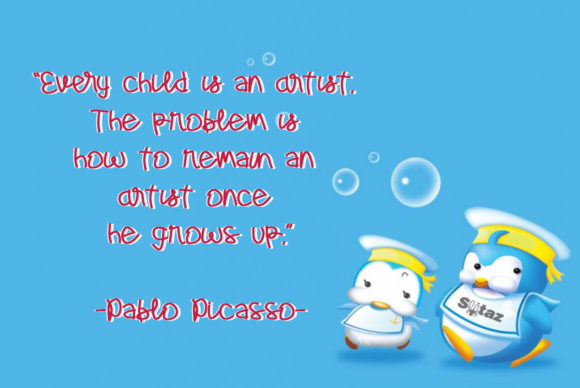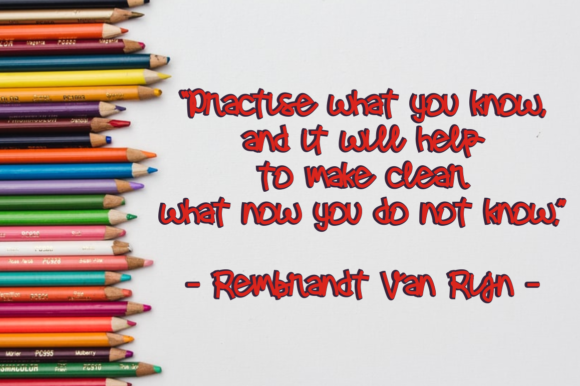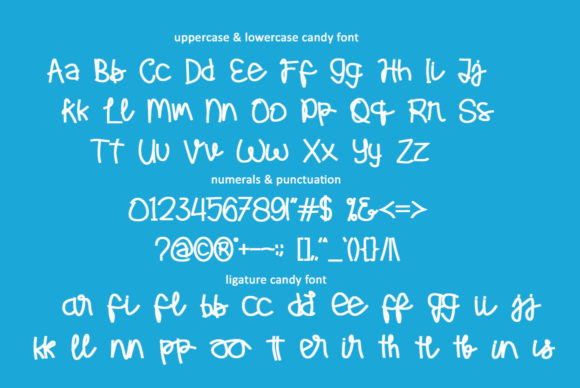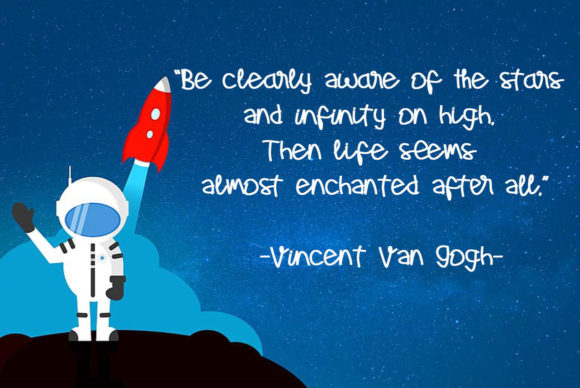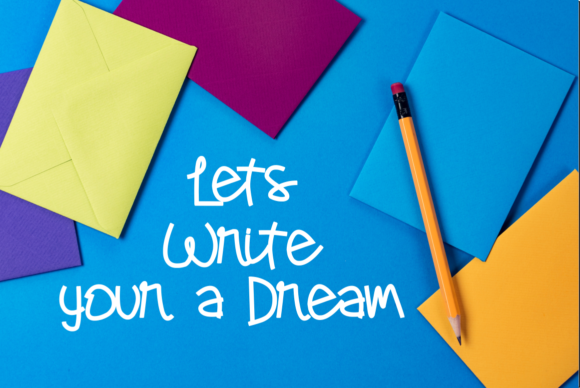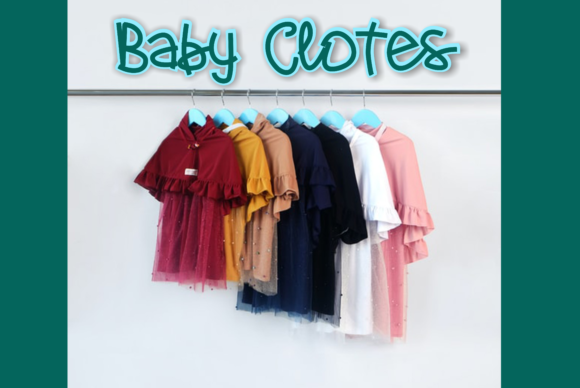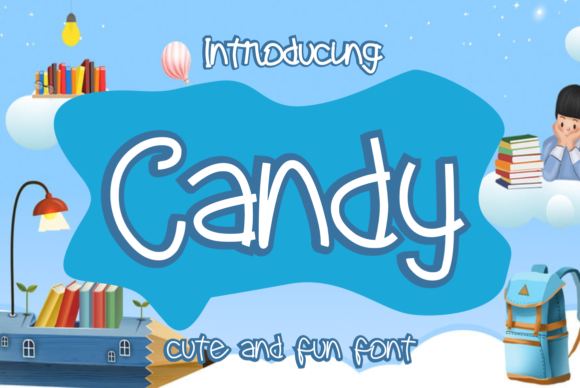
Candy Font: The Sweetest Addition to Your Designs
Are you looking for a font that can add a touch of whimsy and playfulness to your designs? Look no further than the Candy font! This adorable display font is perfect for designers and crafters who want to create eye-catching and engaging content. In this article, we’ll explore the features and benefits of the Candy font, and show you how to use it to take your designs to the next level.
What is Candy Font?
Candy font is a cute and playful display font that is designed to make your creations stand out. With its bold and colorful letters, this font is perfect for adding a touch of sweetness to your designs. Whether you’re working on a logo, a poster, or a social media graphic, the Candy font is sure to make a statement.
Features of Candy Font
So, what makes the Candy font so special? Here are just a few of its key features:
• Cute and Playful Design: The Candy font has a fun and playful design that’s perfect for creating eye-catching content.
• Bold and Colorful Letters: The font features bold and colorful letters that are sure to grab attention.
• Easy to Read: Despite its playful design, the Candy font is easy to read, making it perfect for use in a variety of contexts.
• High-Quality Design: The font is designed to high-quality standards, ensuring that it looks great in any design.
Benefits of Using Candy Font
So, why should you use the Candy font in your designs? Here are just a few benefits:
• Adds a Touch of Whimsy: The Candy font adds a touch of whimsy and playfulness to your designs, making them more engaging and eye-catching.
• Perfect for Kids’ Content: The font is perfect for use in kids’ content, such as children’s books, educational materials, and games.
• Great for Social Media: The Candy font is also great for use on social media, where it can help your posts stand out from the crowd.
Examples of Candy Font in Use
Here are a few examples of how the Candy font can be used in different contexts:
• Kids’ Book Titles: The Candy font is perfect for use in kids’ book titles, where it can add a touch of whimsy and playfulness.
• Social Media Posts: The font is also great for use in social media posts, where it can help your content stand out from the crowd.
• Logo Design: The Candy font can be used to create fun and playful logos for businesses and organizations.
• Party Invitations: The font is perfect for use in party invitations, where it can add a touch of sweetness and whimsy.
In conclusion, the Candy font is a cute and playful display font that is perfect for designers and crafters who want to add a touch of whimsy to their creations. With its bold and colorful letters, this font is sure to make a statement in any design. Whether you’re working on a logo, a poster, or a social media graphic, the Candy font is a great choice. So why not give it a try and see the amazing results for yourself?